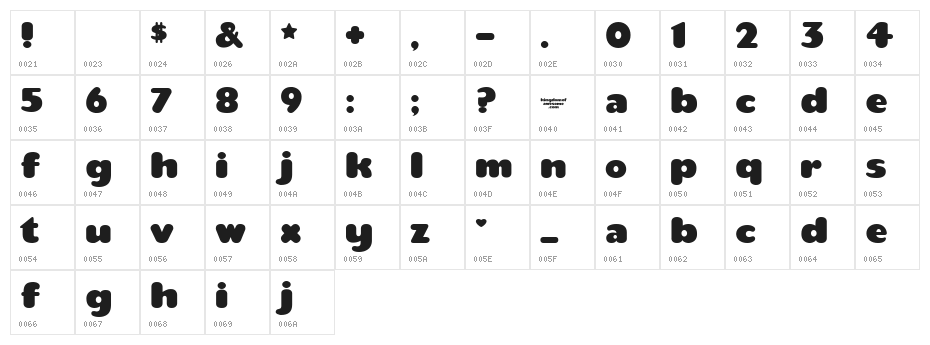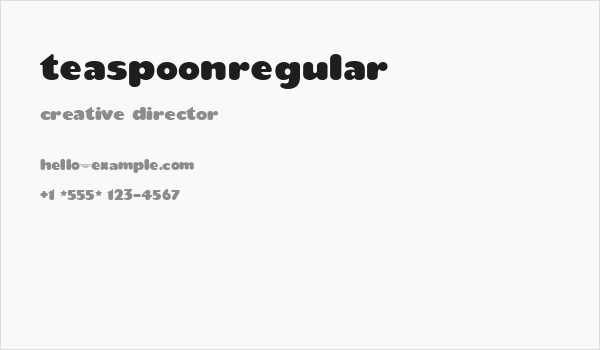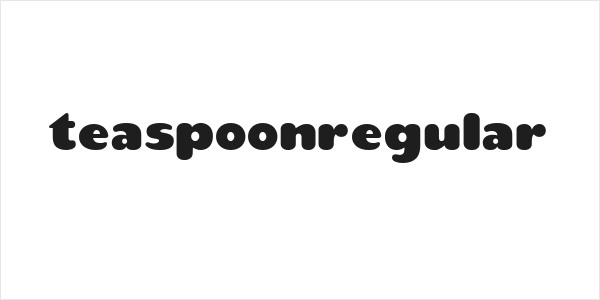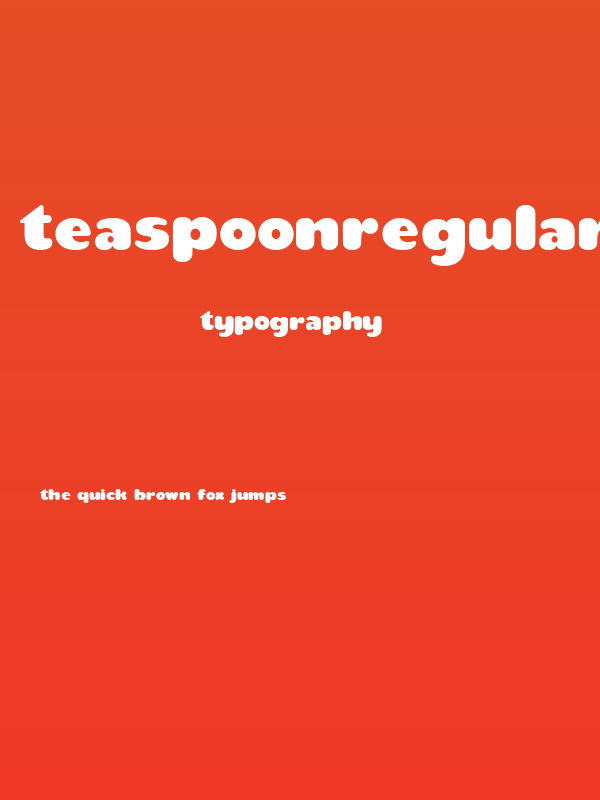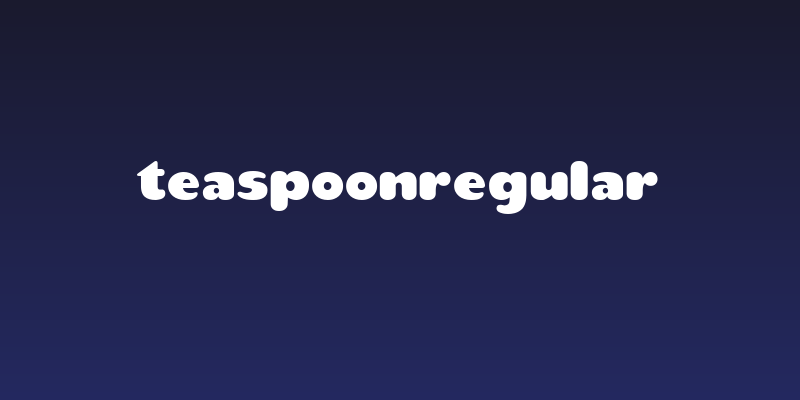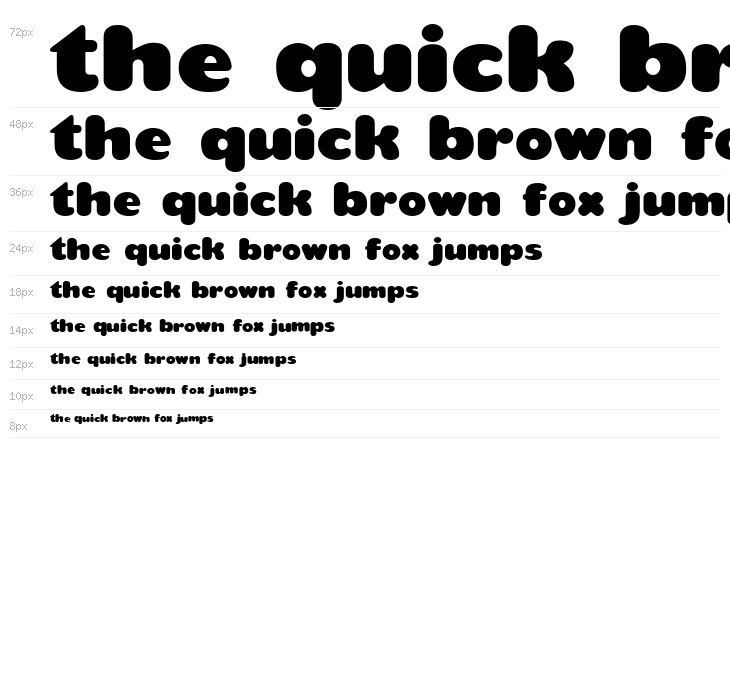
teaspoonRegular Font
teaspoonRegular Description
This font features a playful and bold design with rounded edges, giving it a friendly and approachable appearance. The characters are uniformly thick, contributing to a cohesive and solid look. The rounded terminals and consistent stroke width create a sense of warmth and softness, making it ideal for projects that require a casual and inviting tone. The numerals and special characters maintain the same playful style, ensuring consistency across all text elements. This font is particularly suitable for children's books, playful branding, and any design that aims to convey a sense of fun and creativity.
| Overall Style | Playful, Friendly |
| Proposed Projects | Children's books, playful branding, creative posters, and casual invitations. |